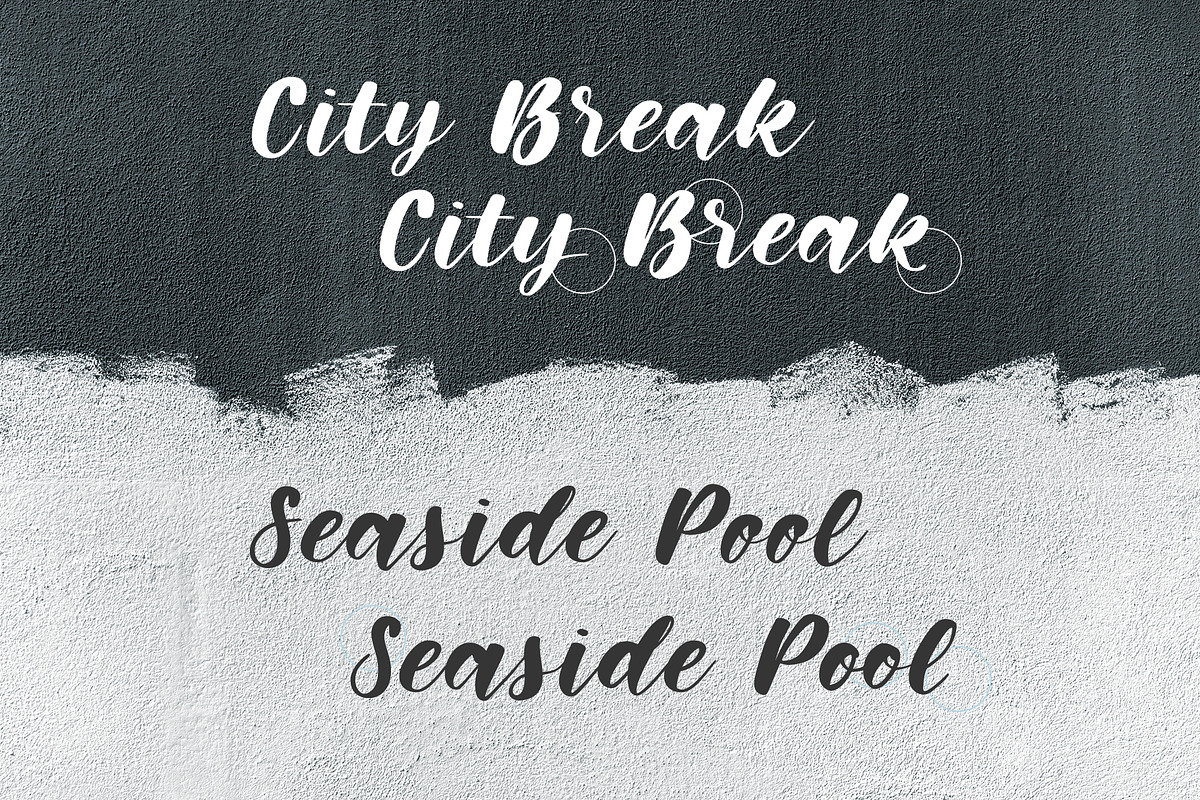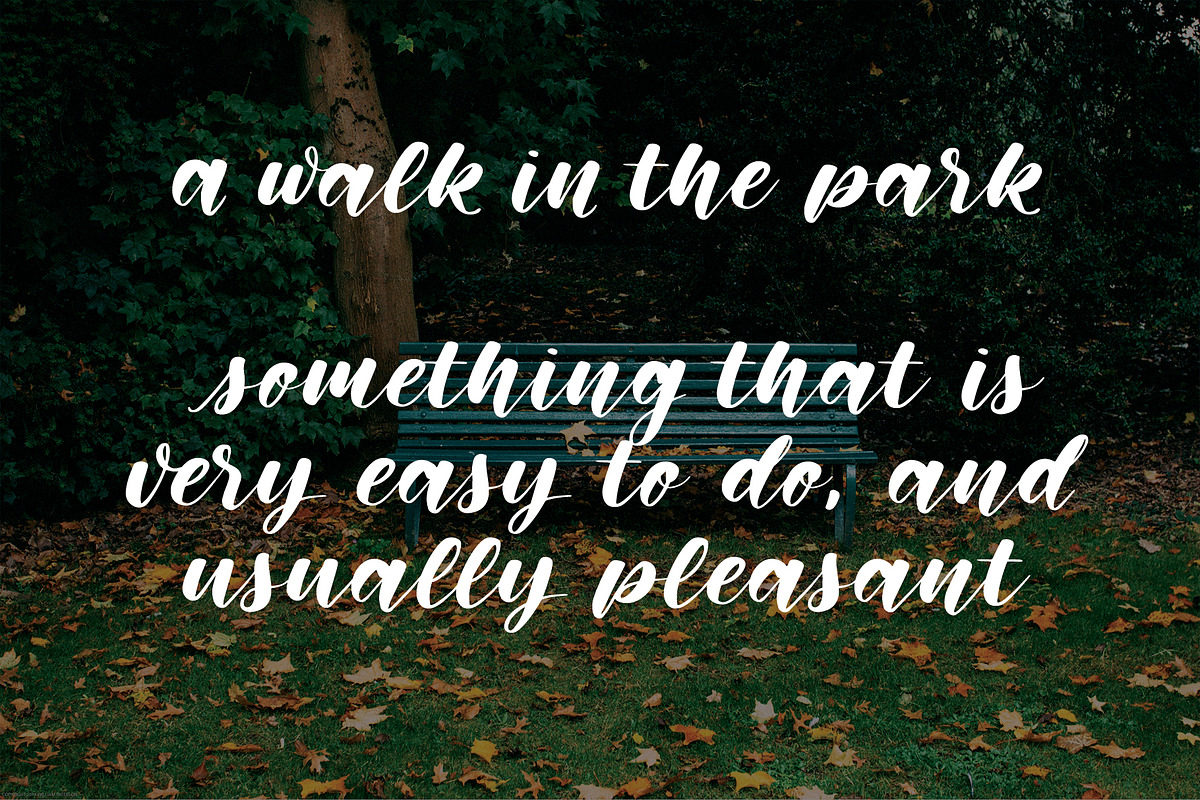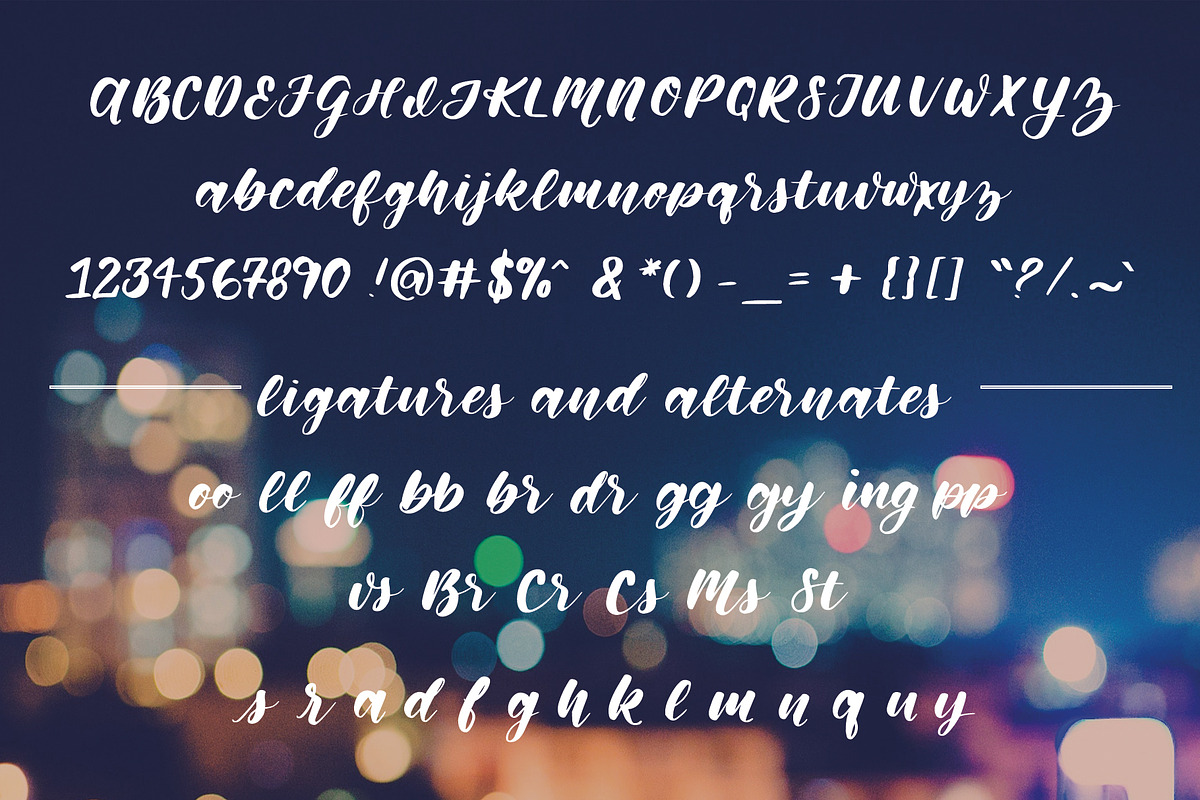
Memphis Park Script Font
Memphis Park - A Casual Hand Written Brush Script Font
Memphis Park is a full script font, uppercase and lowercase are both in a modern calligraphy style. This font has multilingual support with accented characters for international (Western European, Central European and South Eastern European) users. There are a number of stylistic alternates and ligatures available through the glyphs palette in programs like Photoshop and Illustrator.
This font can be used in logos or longer form text as it is very readable and consistent.